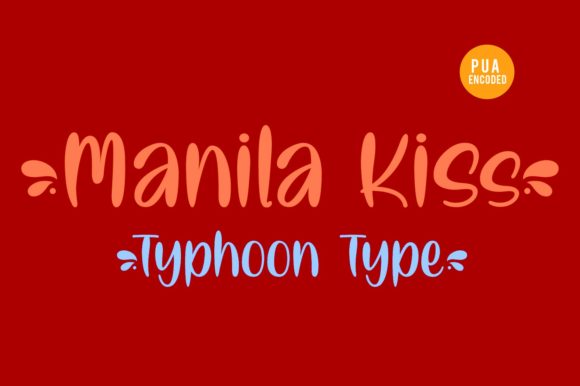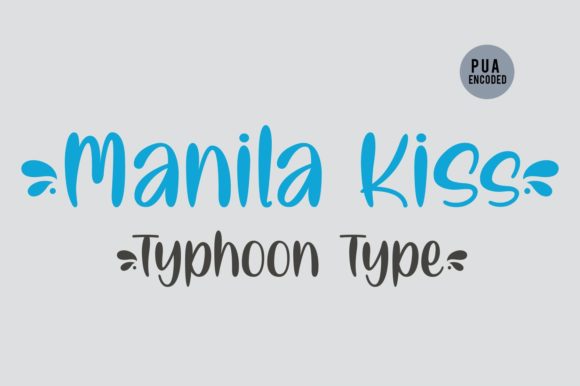
Introduction to Manila Kiss Font Font
Fonts play a crucial role in design, and the Manila Kiss Font font is a typeface that brings both character and versatility to any project. Whether you’re working on a branding project, a website, or a print design, the Manila Kiss Font font offers a unique style that can elevate your work.
Manila Kiss is a stylish and dainty handwritten font that features sweet and delicate swashes.
This original look will appeal to a wide range of crafty ideas, from letterheads and titles, to stationery .
Key Features of Manila Kiss Font Font
Why Choose Manila Kiss Font Font?
The Manila Kiss Font font is more than just a typeface – it’s a design tool that helps you communicate your message with style and clarity. Its unique character set and versatile design make it suitable for a wide range of applications, from elegant invitations to bold headlines.
With its carefully crafted letterforms and balanced proportions, the Manila Kiss Font font ensures readability and visual appeal across all mediums.
What makes Manila Kiss Font font special?
The Manila Kiss Font font stands out with its unique design, exceptional readability, and versatility across various design applications.